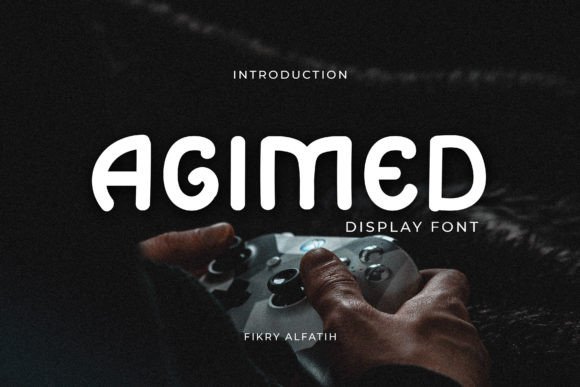
Venture into a visual odyssey with Agimed Font, the ultimate display font that captivates imaginations and leaves an indelible mark. Immerse yourself in a world of creativity where playful curves and rounded shapes dance together, evoking a sense of wonder and joy. Agimed's enchanting aura breathes life into kids' imaginations, making it the perfect companion for greeting cards, where heartfelt messages take flight.
Unleash your inner artist and let Agimed guide you through the realm of invitations, posters, and websites, transforming ordinary designs into masterpieces. Witness the magic as Agimed's characters grace book covers, bringing stories to life with a touch of whimsy and intrigue. Quotes, logos, and presentations attain a new level of elegance and charm, leaving a lasting impression on your audience.
Headlines adorned with Agimed command attention, captivating readers with their playful yet sophisticated allure. Agimed's versatility extends beyond the digital realm, adding a touch of whimsy to handwritten notes, invitations, and posters. Its amiable nature makes it a cherished font among crafters, adding a personal touch to handmade creations.
Agimed Font is your gateway to a world of limitless creativity, where imagination reigns supreme. Its user-friendly nature makes it accessible to designers of all skill levels, inviting you to embark on a journey of artistic expression. Embrace the magic of Agimed and watch as your designs blossom into captivating works of art.